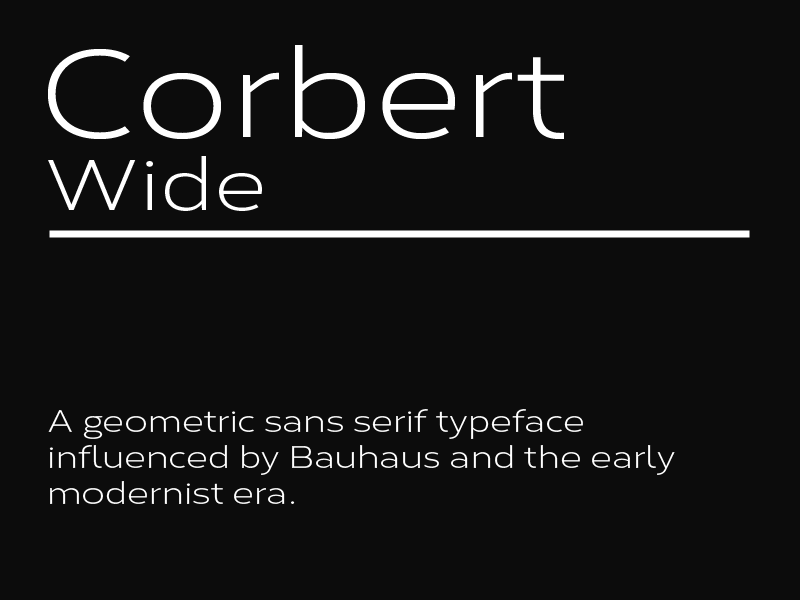
Free Popular Geometric Sans Serif Fonts | Premium Fonts
Free and Premium Quality Fonts - Best Premium FontsAs san serif typefaces have only been around for about 100 years it is necessary for designers or enthusiasts to have an understanding how it all came about. Please consider disabling it to see content from our partners. Created as a display typeface in 2012 by cosimo lorenzo pancini cocogoose is one of zetafonts most loved typefaces.
popular geometric sans serif fonts
Popular geometric sans serif fonts. 20 free geometric sans serif fonts. If you are seeing this message you probably have an ad blocker turned on. Guenter gerhard lange class. While serif fonts are known to be more traditional sans serif fonts bring that much needed modernistic touch to the design.
Most popular typefaces best for webfonts. The typeface feels modern with geometric rounding and open apertures in characters. Any graphic or web designers usually uses typography to convey messages to customers or visitors. Caleigh huber morris fuller benton class.
C notable geometric types of the period include kabel semplicita bernhard gothic nobel and metro. The fonts and the typefaces are described as a style of the lettering which is used for communication. Arquitecta is a geometric sans serif font inspired by hand lettering from the early. In this post we have compiled together some of best modern sans serif fonts for your latest project or to inspire you for your next assignment.
We have 145 free geometric sans serif fonts to offer for direct downloading 1001 fonts is your favorite site for free fonts since 2001. A sans serif typeface of geometric proportions with very low contrast and slightly rounded corners it was the first typeface to be produced in the coco series an ongoing research on the design variation in gothic typefaces through the ages. More recent designs in the style include itc avant garde brandon. Geometric sans serif fonts were popular from the 1920s and 1930s due to their clean modern design and many new geometric designs and revivals have been created since.
Free font comfortaa could work well in a logo design image credit. Font squirrel relies on advertising in order to keep bringing you great new free fonts and to keep making improvements to the web font generator. This font was created by kostas bartsokas and it brings together features from early european grotesques and american gothics. One of the most common font types used in the field of digital publishing is the.
Google fonts comfortaa is a rounded geometric sans serif type design intended for large sizes. Based on known historical accounts officially modern sans serif has been created on 1816 by. Fonts resources andrian valeanu july 12 2015 7 minutes read. Samples of sans serif typefaces typeface name example 1 example 2 example 3 agency fb designer.
Created by johan aakerlund a design engineer at the technical university of denmark its a simple good looking font that includes large number of different characters and symbols.